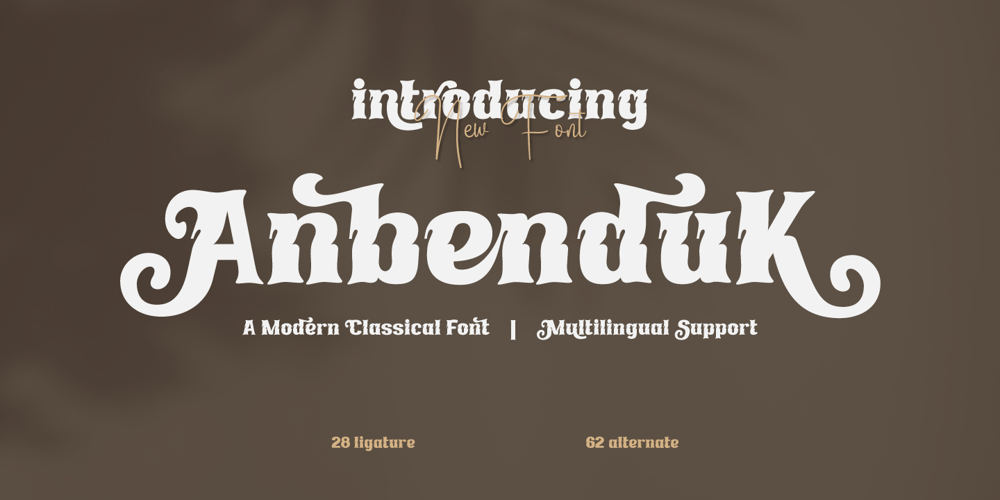
Anbenduk Font Family was designed by Rozikan and published by Twinletter. Anbenduk contains 1 styles and family package options. The Anbenduk typeface is ideal for projects that require an elegant classic modernist serif feel. This font’s distinct and attractive design will make your writing stand out and appear professional.Anbenduk has wonderful features like ligatures and alternates that will provide a creative touch to your creations. Aside from that, this font supports a wide range of international languages, making it ideal for multilingual projects.Don’t make your design appear boring or corny. Use Anbenduk to add a creative and professional touch to your designs. Get Anbenduk immediately and transform your project!What’s Included :- File font- All glyphs Iso Latin 1- Alternate, Ligature- Simple installations- We highly recommend using a program that supports OpenType features and Glyphs panels like many Adobe apps and Corel Draw so that you can see and access all Glyph variations.- PUA Encoded Characters – Fully accessible without additional design software.- Fonts include Multilingual support